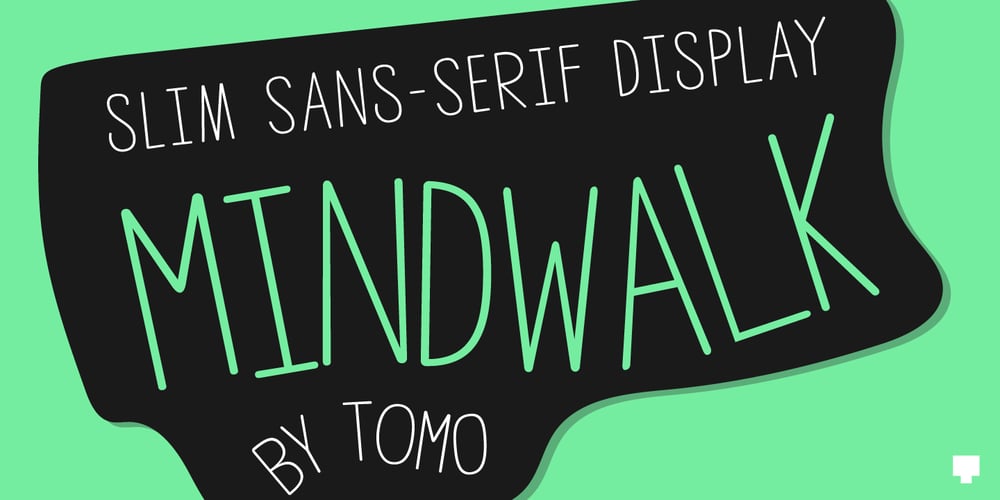
Mindwalk
Mindwalk font
Mindwalk Font Family was designed by TOMO Fonts and published by TOMO Fonts. Mindwalk contains 2 styles and family package options. TOMO Minkwalk is a casual but legible hand-made font. A tall, single weight, all-caps typeface with lots of language support. Ideal for book covers, or large pieces of text. Have fun!